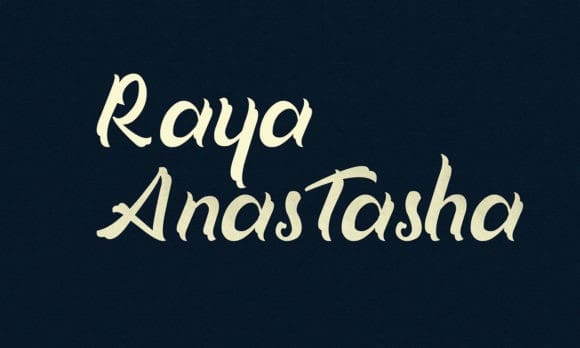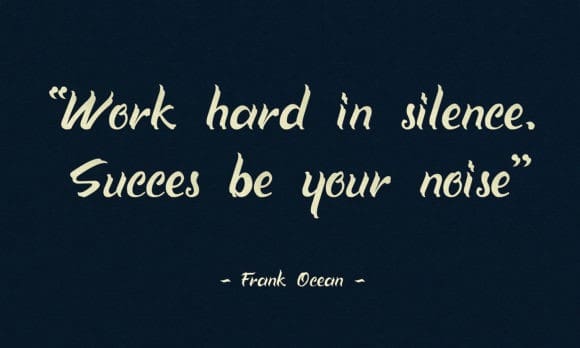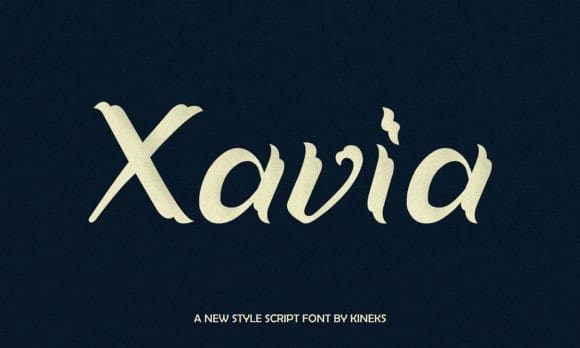
Xavia Font
Xavia Font is a trendy, paint brushed and flowing script font. Fall in love with its incredibly distinct and timeless style and use it to create spectacular designs!